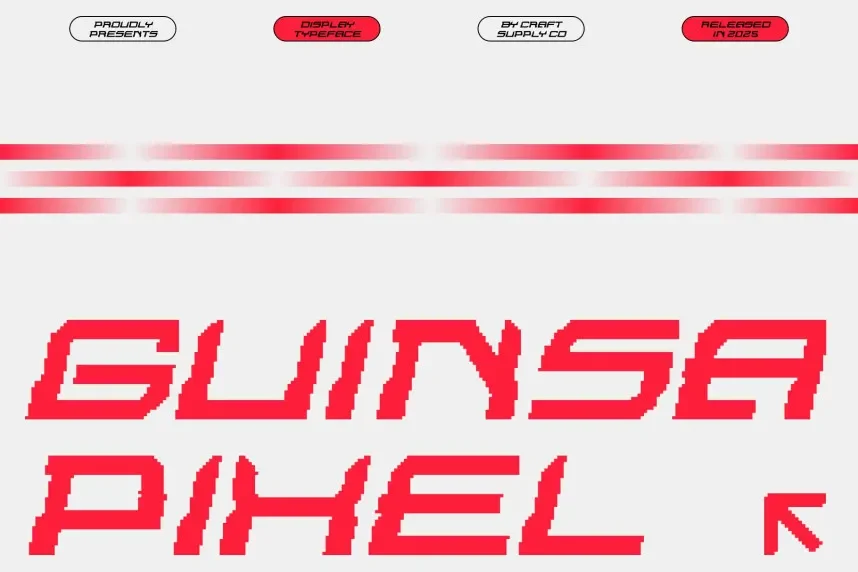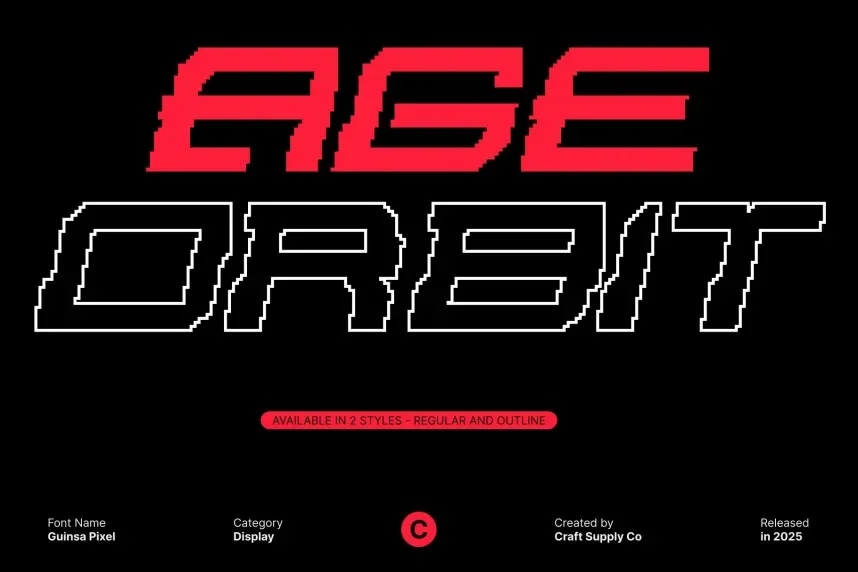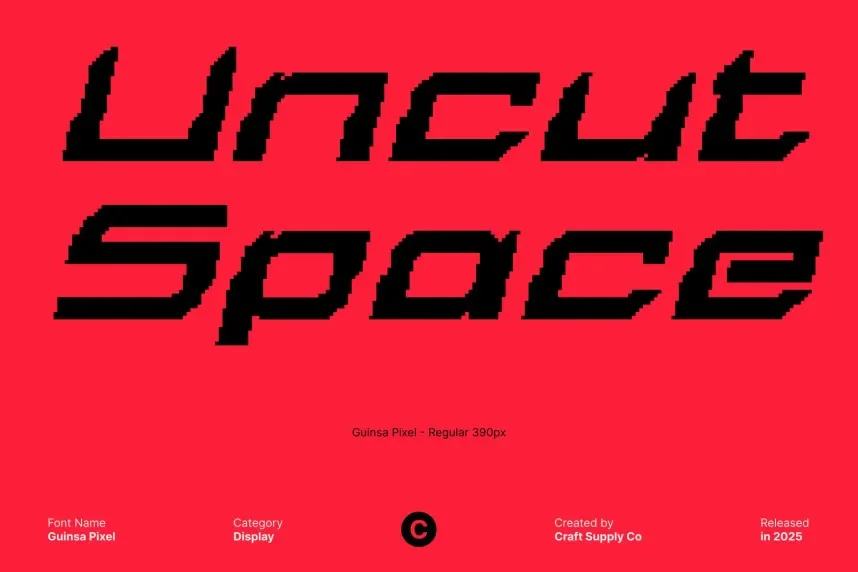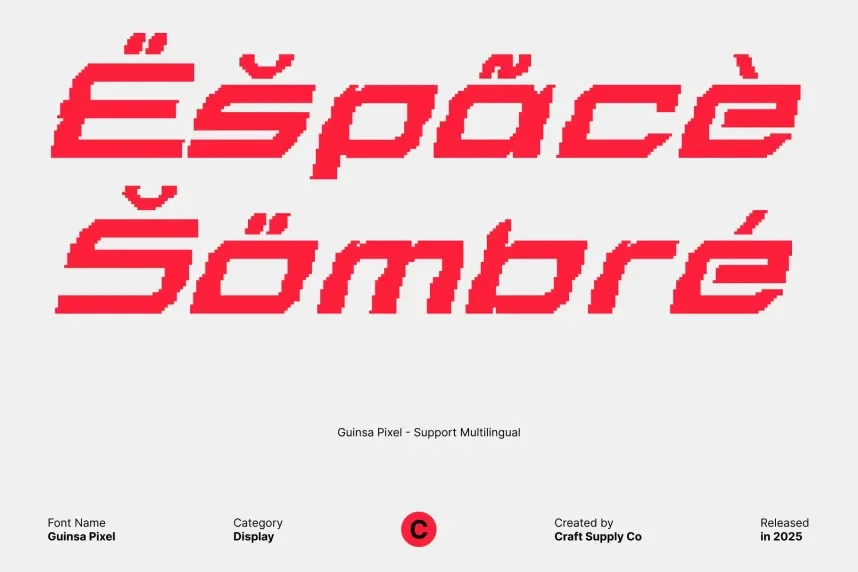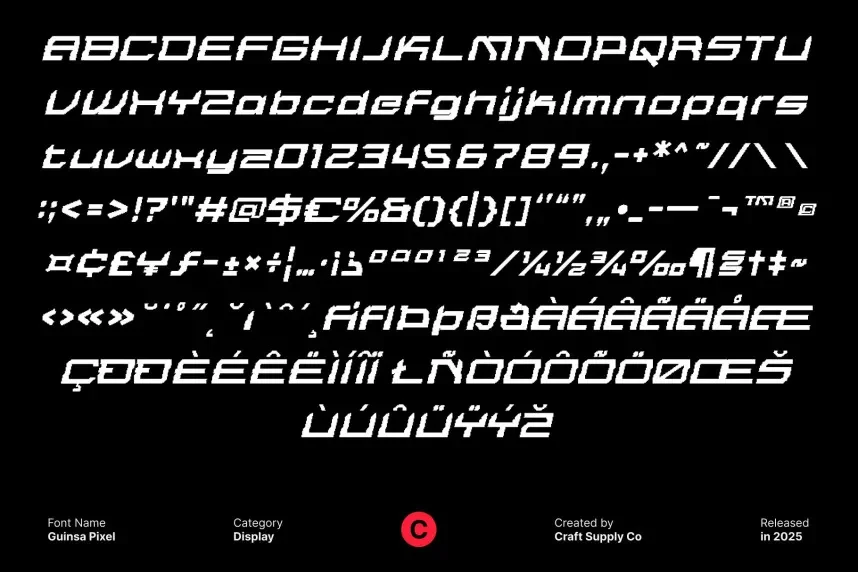
Guinsa Pixel Font offers a bold and structured pixel design, ideal for projects that require a high-tech, digital feel. With clear pixel edges and a strong presence, it’s suitable for digital marketing, video games, and tech branding.